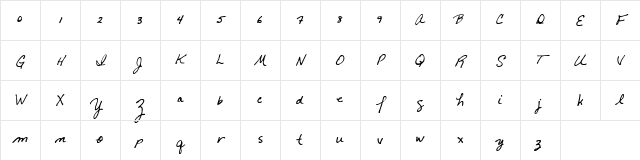
Cindywrite Hand Free Font
Cindywrite Hand
Style: Hand
Foundry: Font Garden
Designer: Ellinor Rapp
Design Context for Cindywrite
Cindywrite flows with the natural rhythm of handwritten lettering, making it ideal for designs that call for warmth and personal expression.
Font Pairing: Combine Cindywrite with a simple geometric sans for maximum contrast - the tension between flowing curves and clean structure is a classic typographic pairing.
Pro Tip: Use Cindywrite for short runs of text - names, titles, or taglines. Extended body copy in script faces tires the eye quickly.